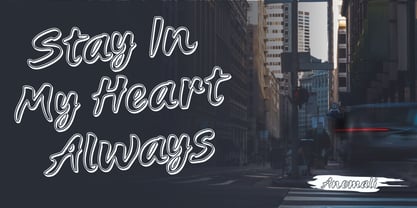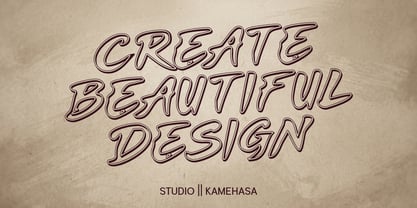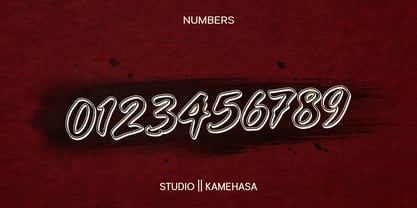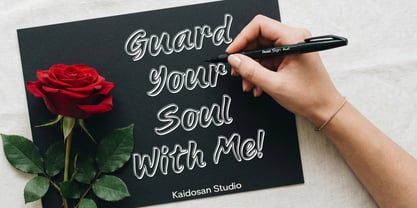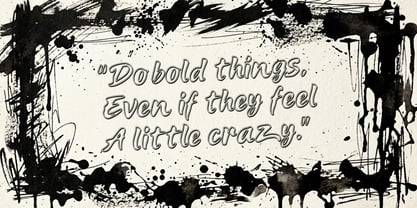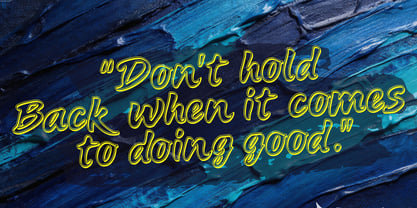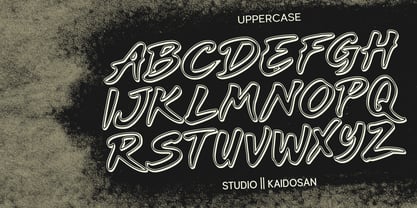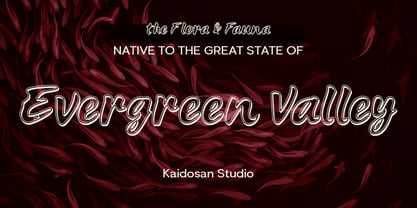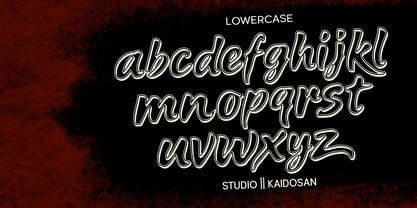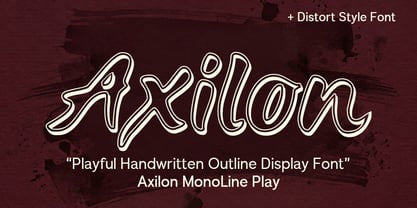
Axilon
by Kaidosan
The Axilon Font Family was designed by Muhammad Ansari and published by Kaidosan. Axilon contains 2 styles and family package options. More about this family
Axilon is a playful handwritten outline display font crafted with a unique monoline character and subtle distorted strokes, giving it a lively and expressive personality. Designed to stand out, this font blends casual hand-drawn energy with a modern aesthetic, making it perfect for eye-catching headlines and creative branding. Its organic curves, uneven contours, and bold outline style create a dynamic visual rhythm that feels both fun and artistic. Axilon is highly suitable for posters, logos, packaging, social media graphics, apparel design, and any project that needs a distinctive and youthful touch. Key Features: Unique distorted outline style Monoline handwritten character Playful and expressive letterforms Strong visual impact for display use Works great on dark or textured backgrounds Perfect For: Branding, posters, music covers, street-style design, merchandise, and creative digital content. Axilon brings a bold, artistic voice to your typography—perfect for designers who want to break away from the ordinary.
Designers: Muhammad Ansari
Foundry: Kaidosan